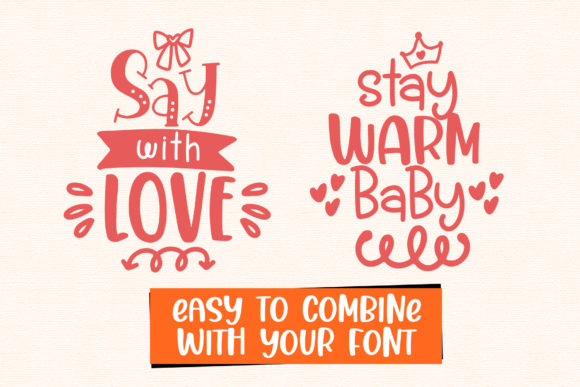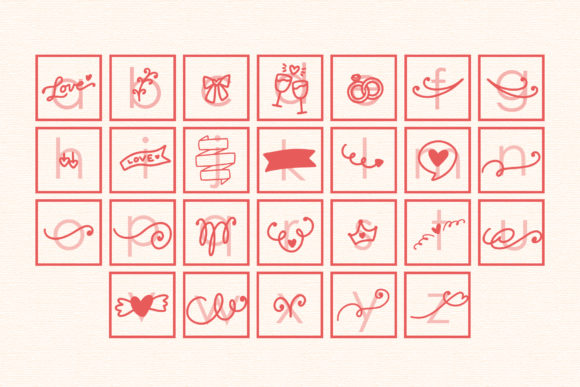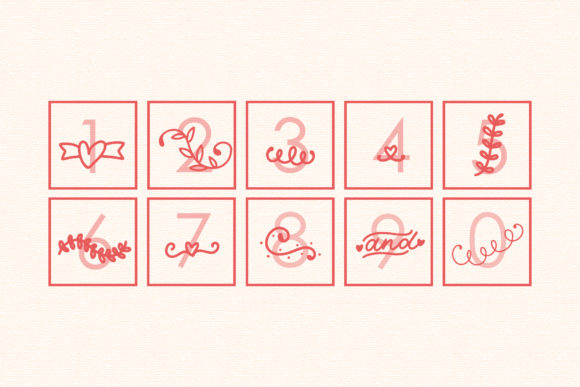
Crafter Delight Font
Crafter Delight is a collections of 62 cute and lovely doodles in one font. No matter the topic, this font will be an incredibly asset to your fonts’ library, as it has the potential to elevate any creation.